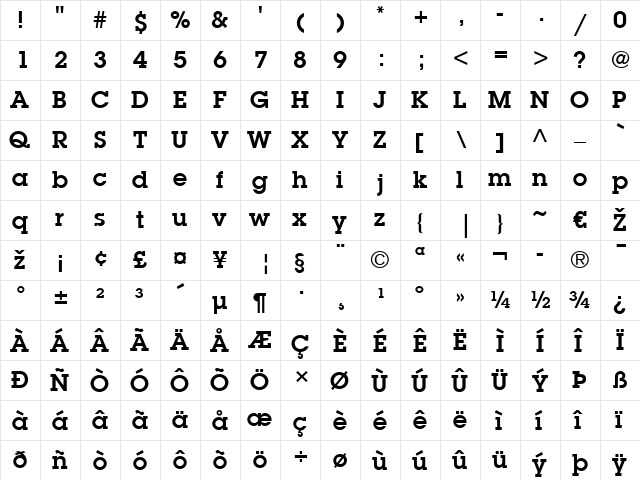
LubalinGraph LT Bold
Design Context for LubalinGraph LT Typeface
LubalinGraph LT is a composed and adaptable typeface that performs quietly and consistently across a wide range of design contexts. Its bold stroke weight gives it real presence on the page.